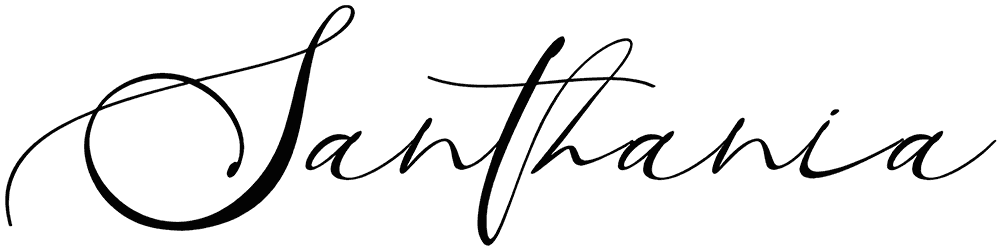
Santhania Font
Since your words can convey an elegant and noble vibe, your design will leave a nice first impression on your followers. This calligraphy font, with its classic and chic form, is capable of doing so and spotlighting your unique taste. Put the Santhania font on your new design of a novel book cover or a business card for an artist, and be memorable.